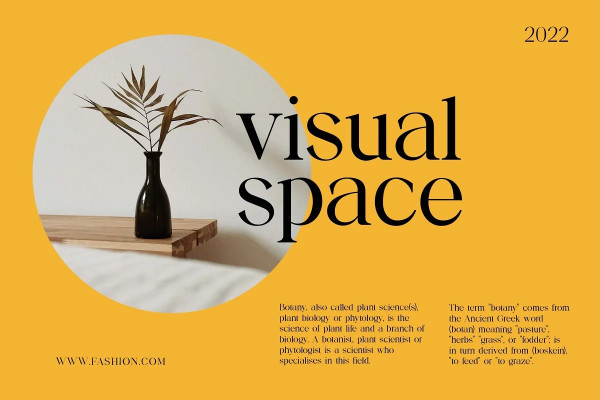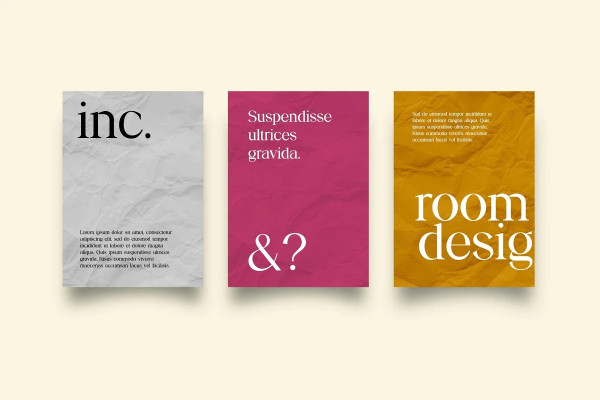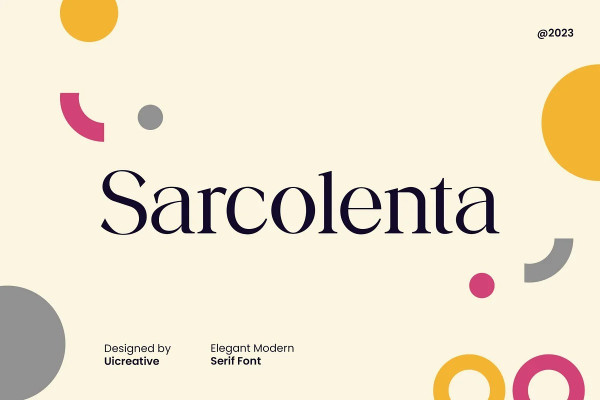
Sarcolenta Font
Sarcolenta Font – Elegant Modern Serif Font, that feels beautiful classy, elegant, and modern. This font is ideally suited for a wide variety of projects, such as signature, stationery, logo, wedding, typography quotes, magazine or book covers, website headers, clothing, branding, packaging design, and more. Also, fashion-related branding or editorial design displays both masculine and feminine qualities.